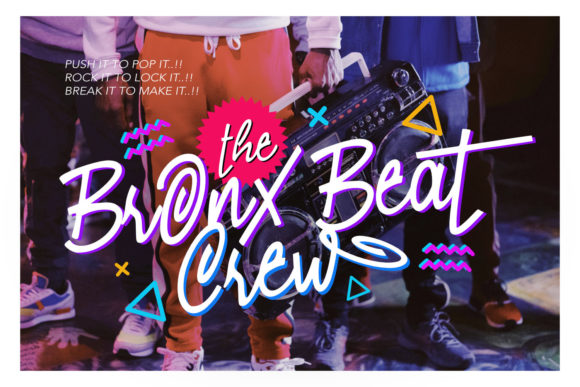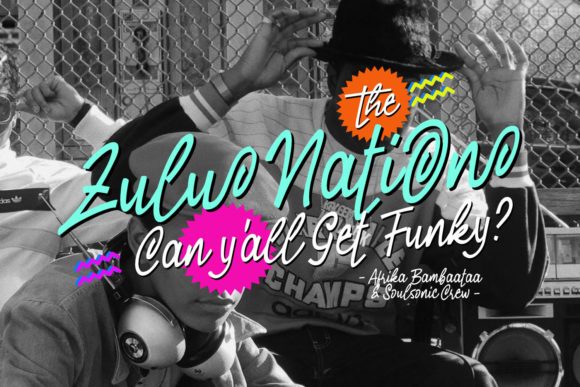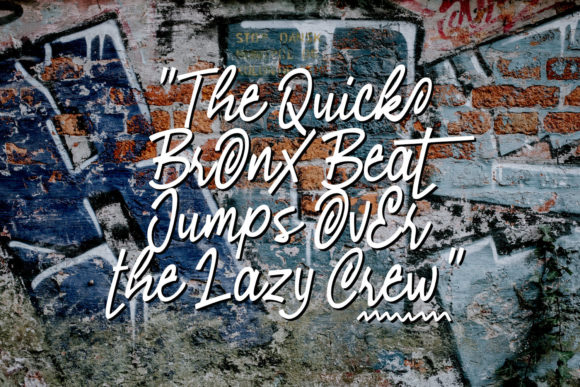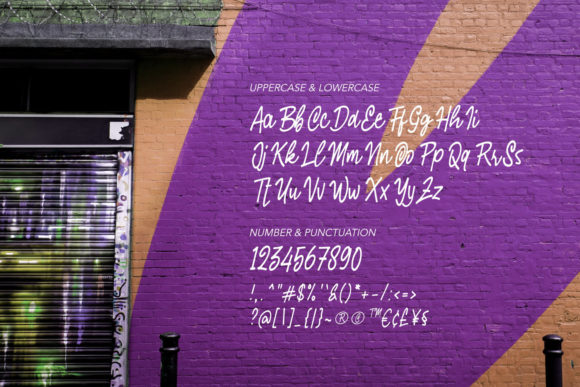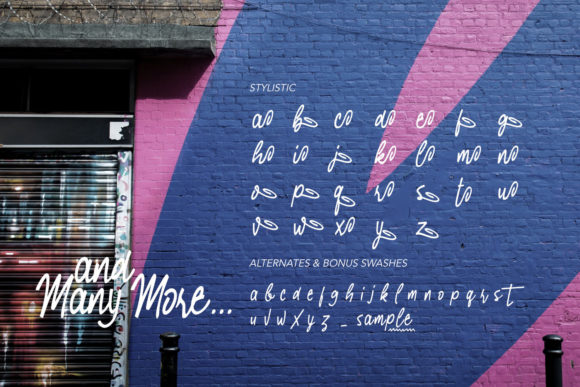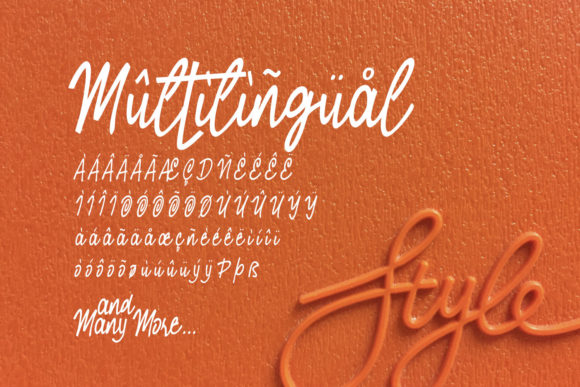
Southern Clan Font
About Southern Clan Font
Southern Clan is a ravishing handwritten font. This versatile script font has a wide spectrum of applications ranging from greeting cards to headlines and is guaranteed to add a romantic feel to your next project.